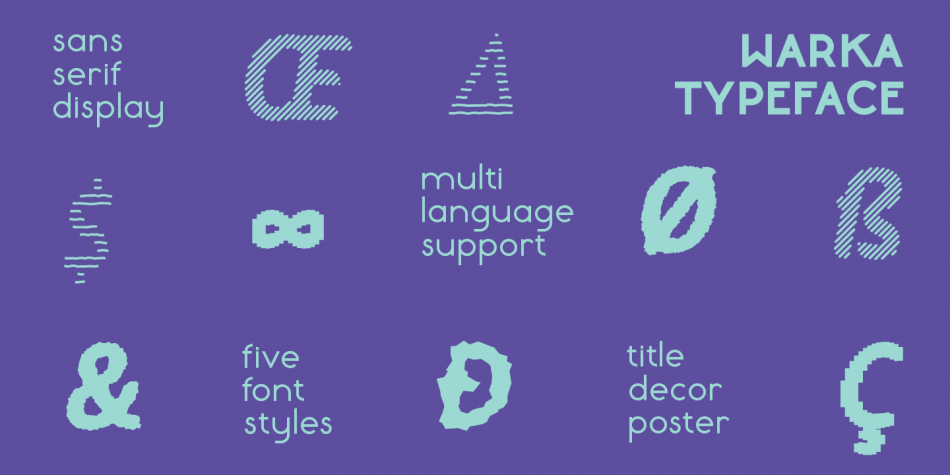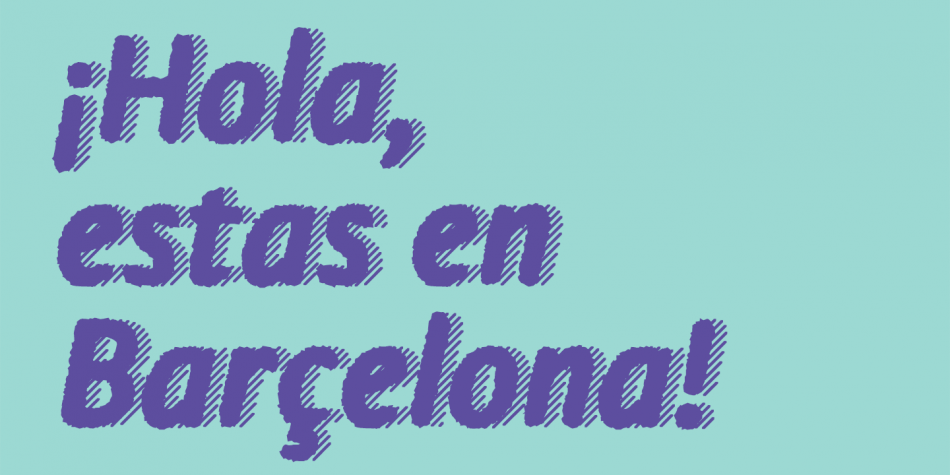
Designed by Alex Etewut, Warka is a display sans font family. This typeface has five styles and was published by Etewut.
Warka typeface is based on sans serif. This display family includes 5 font styles. Combinations may give you impressive effects.